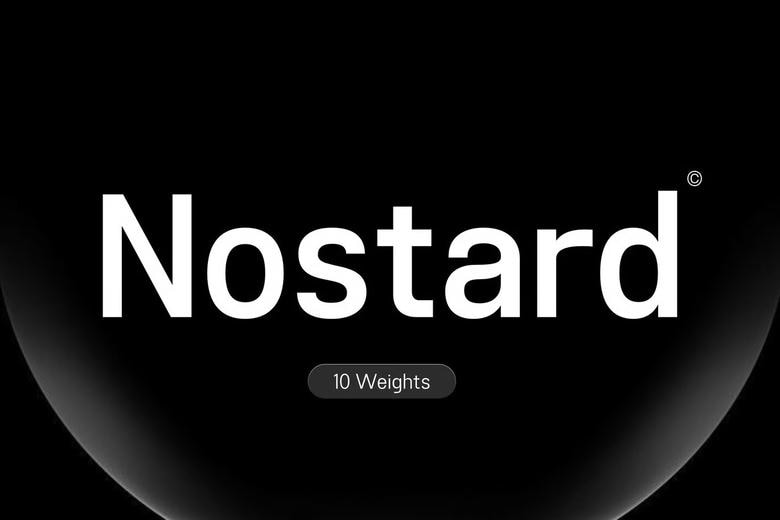
Nostard Font Family
Nostard is a contemporary sans serif typeface that is meant to form the foundation of your design library. It could be the exquisite flair of a Hairline weight, as much as one seeks to create high-end fashion or the dominating presence of a Black weight, as much as one needs a bold brand image, Nostard provides it with a mathematical precision.
Nostard is designed to meet the needs of the modernist designer, balancing between utility and essence. The simplicity and beautiful proportions have helped it be a juggernaut in the realms of UI/UX interfaces, corporate-level branding, and sophisticated editorial designs.
Nostard Sans Serif Font Family